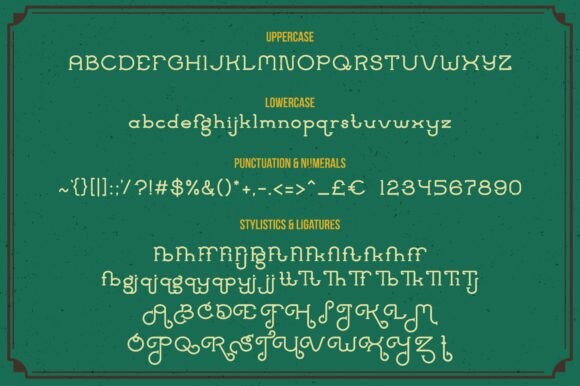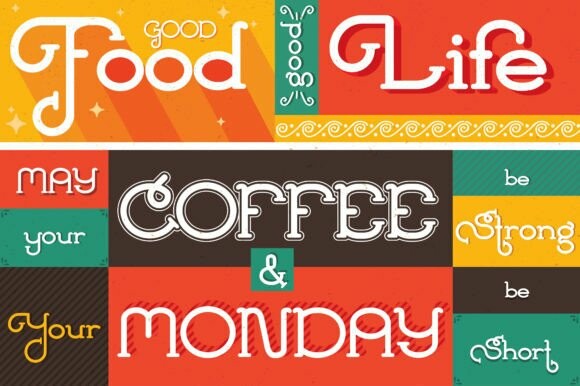
Tagliatelle Font
Designer: KnickKnacks
Tagliatelle Font is a unique typeface suitable for display. It designed as a serif font with a special feature, which is a swirly style stylistic. Tagliatelle consist of 150 glyphs including ligatures and 27 stylistics. It is inspired by typical type of Italian Bistro. Tagliatelle would be perfect to brings fun, friendly and playful atmosphere in your design.